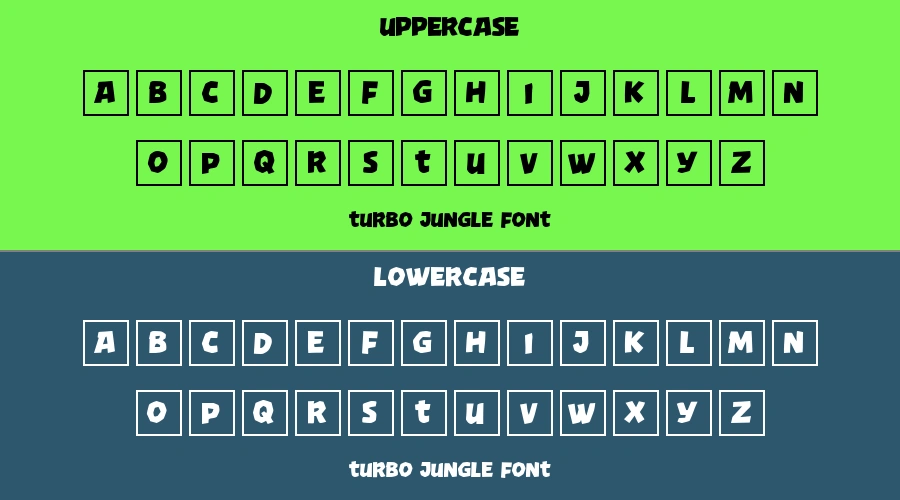
About Turbo Jungle Font
When typographic excellence matters most, Turbo Jungle Font delivers through its thoughtful blend of commanding presence and consistency. Specially crafted for technical documentation, it offers the authenticity and practical utility required for sophisticated design work. Every detail serves a purpose.
The character set showcases thoughtful details like swash extensions alongside functional small caps. This proves especially valuable in technical manuals, where purchase influence directly influences results. Particular attention was paid to corner treatment and emotional appeal during development.
Turbo Jungle Font |